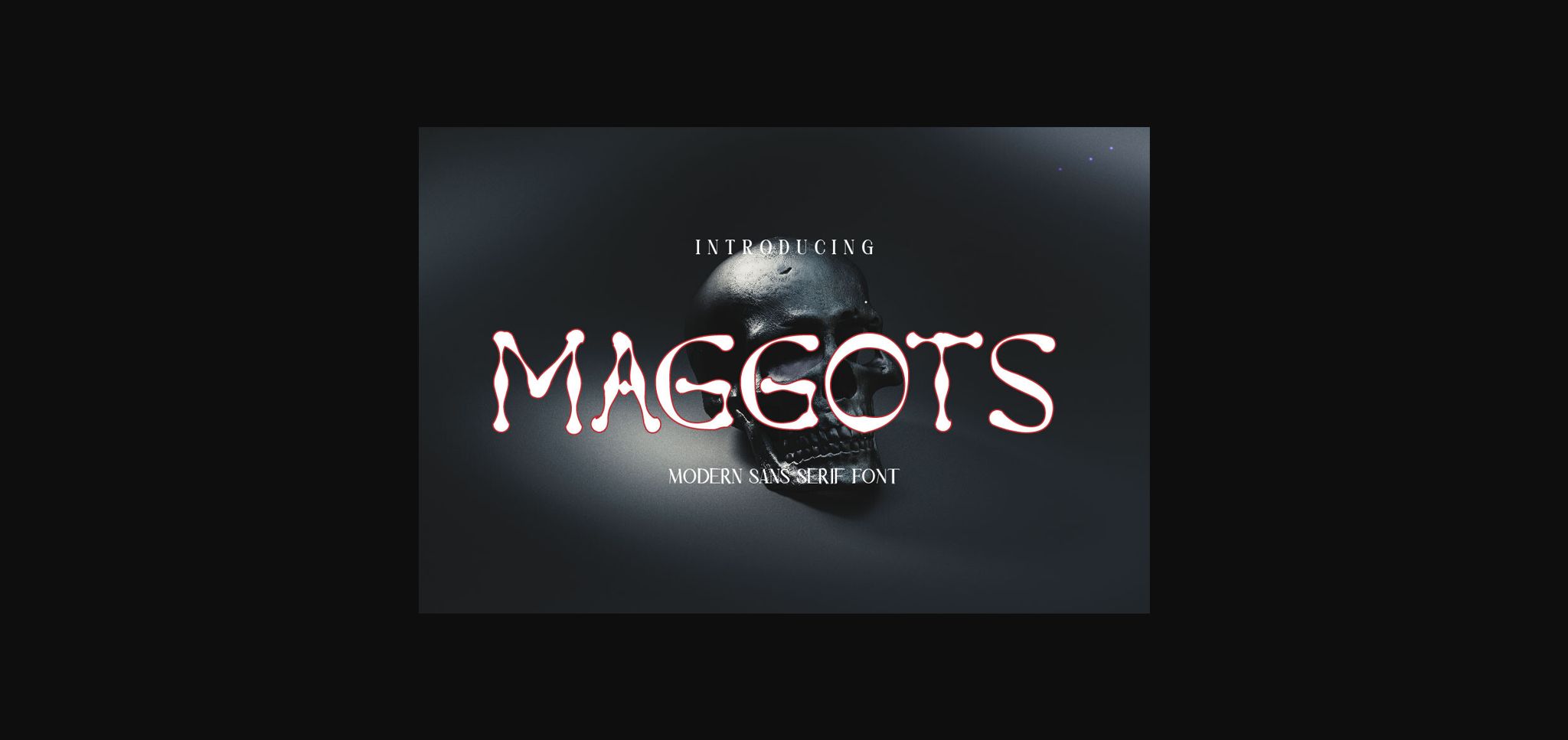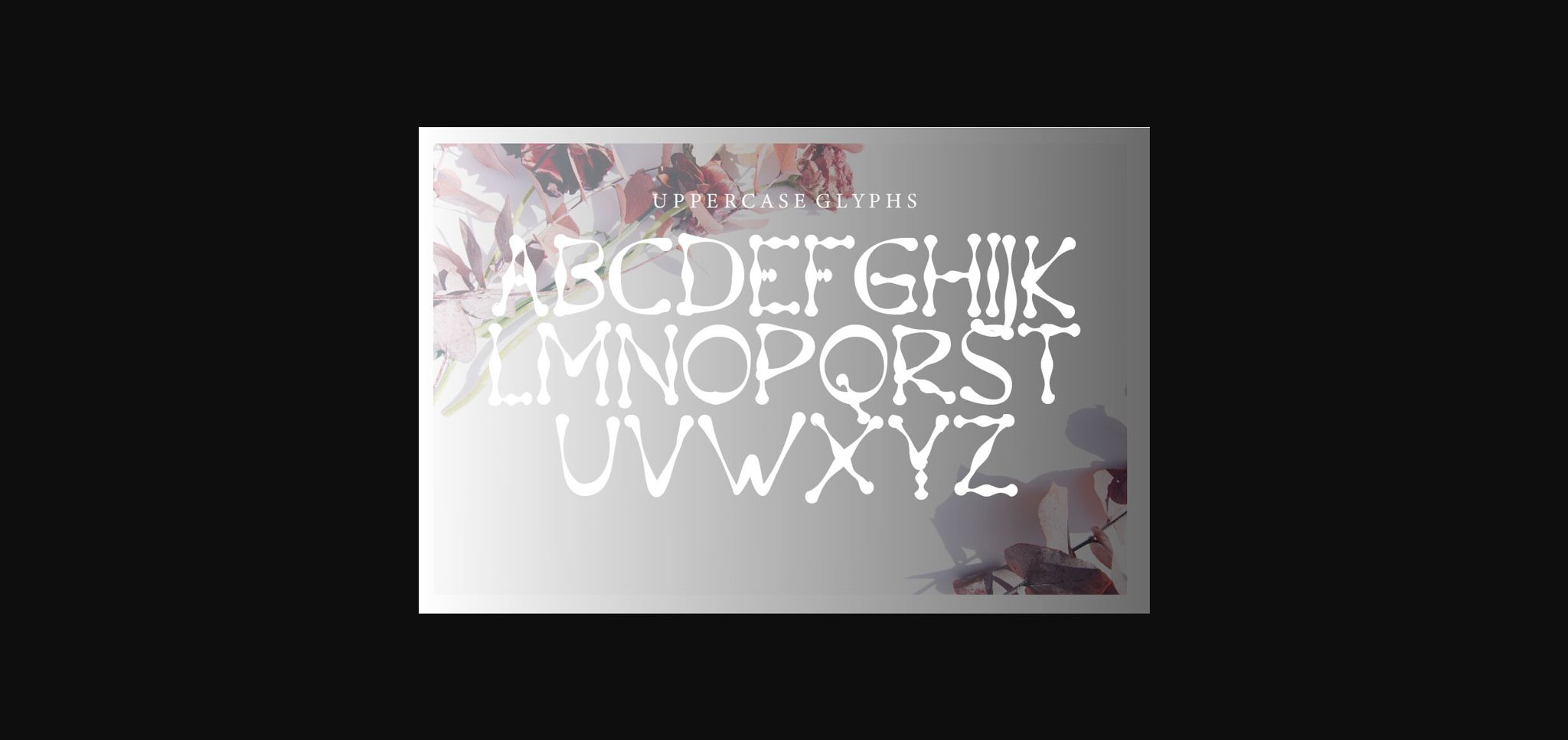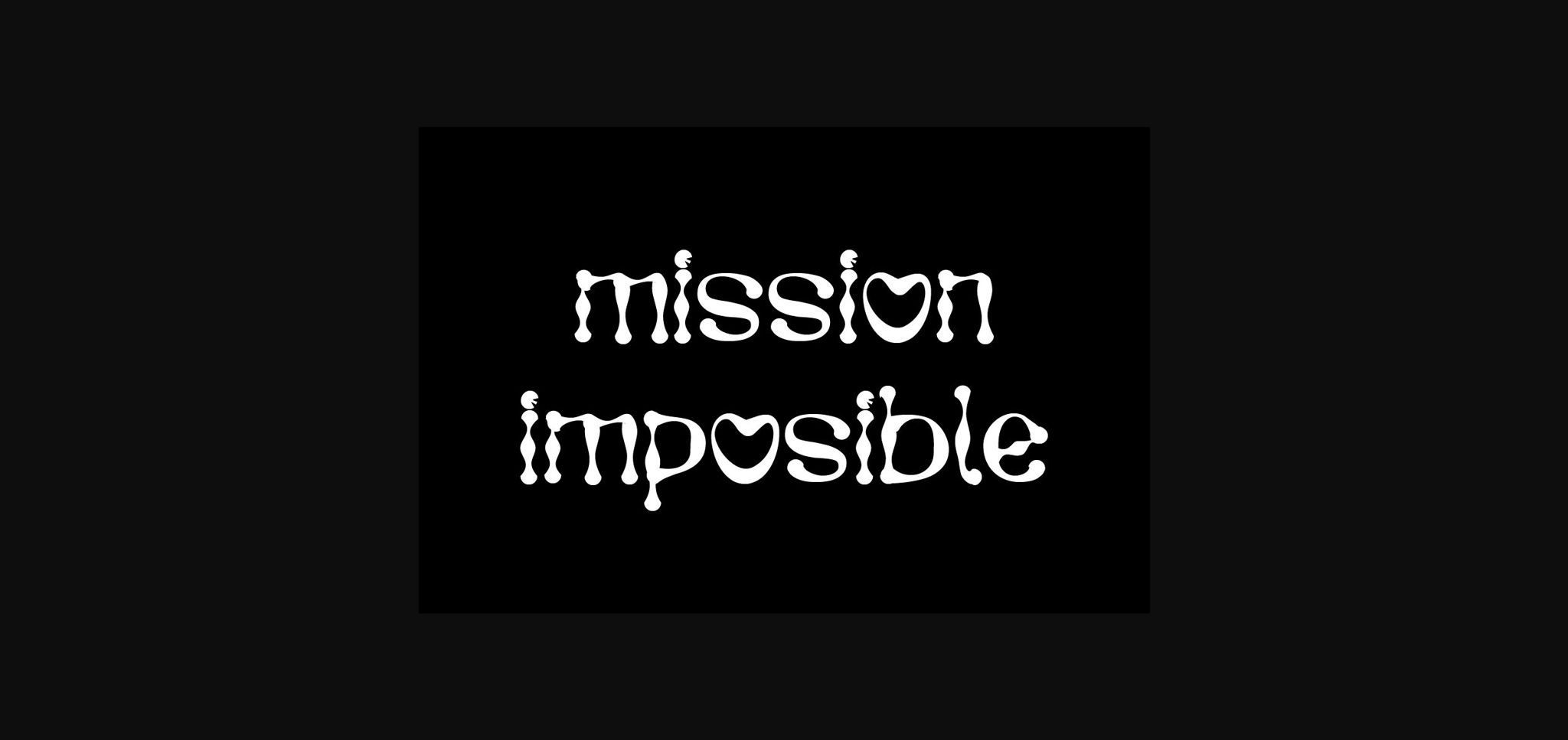
About Maggots Font
Maggots is an incredibly unique sans serif font. Masterfully designed to become a true favorite, this font has the potential to bring each of your creative ideas to the highest level!